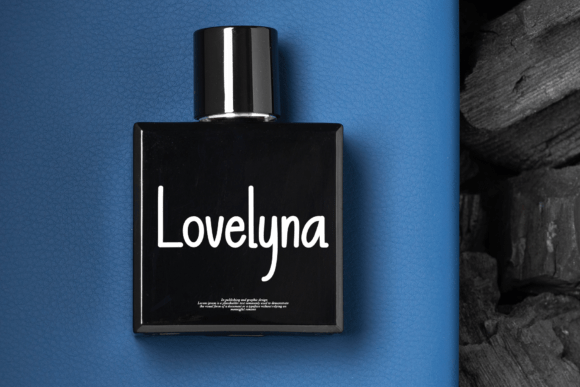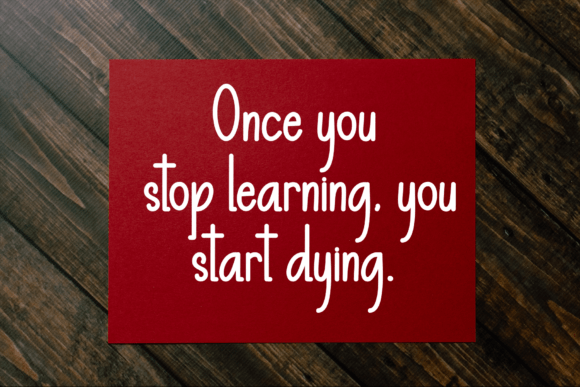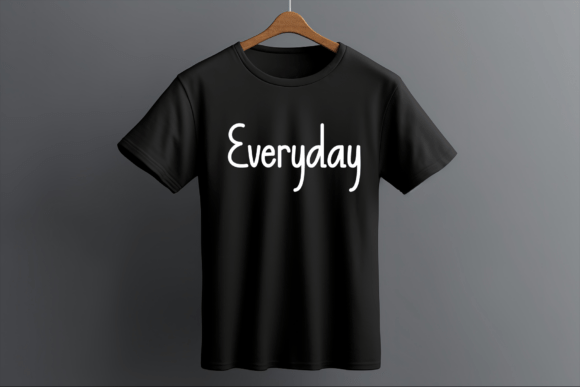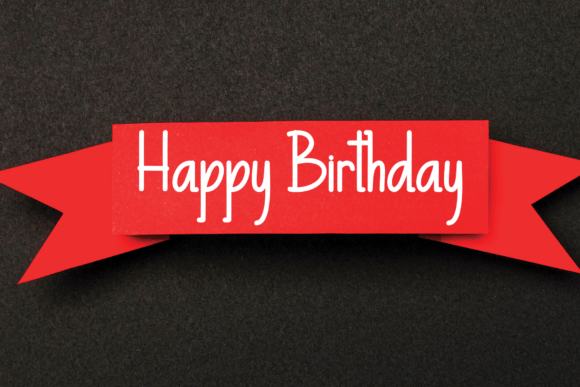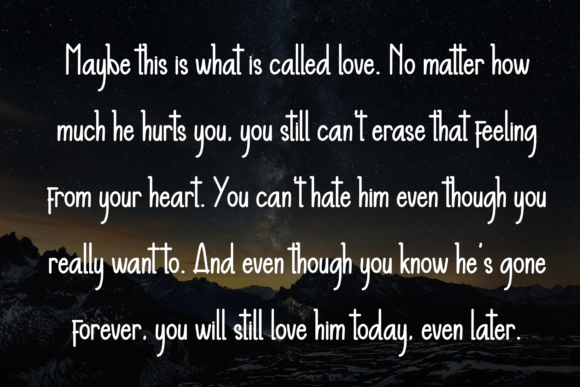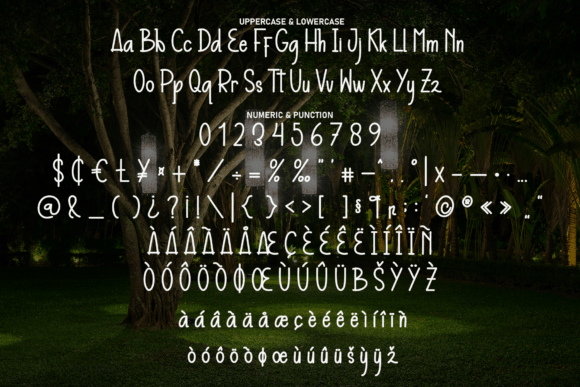
Introduction to Nightgarden Font
Have you ever found yourself lost in the creative process, staring at a blank canvas or a blank document, waiting for the perfect font to bring your idea to life? This is where Nightgarden Font comes in – a game-changing design resource that can instantly elevate your creative project. With its clean structure and approachable style, Nightgarden Font is designed to bring warmth and clarity to your work.
As a designer, you’re always on the lookout for high-quality fonts that can make your message shine. Nightgarden Font delivers just that – balanced letterforms that offer readability and charm, making every message feel genuine and inviting. Whether you’re working on a branding project, a headline, or everyday designs, Nightgarden Font is the perfect companion to bring your ideas to life.
Key Features of Nightgarden Font
- Unique, hand-drawn design suitable for creative projects, offering a whimsical touch to any design resource.
- Perfect for designers looking to add a touch of magic to their design, ideal for use in children’s books, greeting cards, and other creative projects.
Honest Review: Nightgarden Font
I recently stumbled upon the Nightgarden Font, and I must say, it’s been a game-changer for my creative projects. This font is a great addition to any design resource, offering a unique and enchanting style that’s perfect for whimsical and dreamy designs.
The Nightgarden Font features a transparent background, making it easy to combine with other design elements and create stunning visual effects. I’ve used it in various projects, from digital art to social media graphics, and it’s been a hit every time.
- Unique and whimsical style
- High-quality design suitable for a variety of creative projects
Overall, I’m thoroughly impressed with the Nightgarden Font. It’s a high-quality design resource that’s perfect for any creative project. If you’re looking for a unique and enchanting font to add to your design arsenal, I highly recommend giving the Nightgarden Font a try. ✨
The Nightgarden Font is a versatile design resource ideal for creative projects requiring a unique and elegant touch. With its transparent background and high-quality design, this font is perfect for designers seeking a distinctive element to elevate their work.
Getting the Most Out of Nightgarden Font
To maximize the potential of the Nightgarden Font, experiment with different font sizes, colors, and combinations to create visually appealing designs.
The Nightgarden Font is perfect for various creative projects, including:
- Typography-based art and illustrations